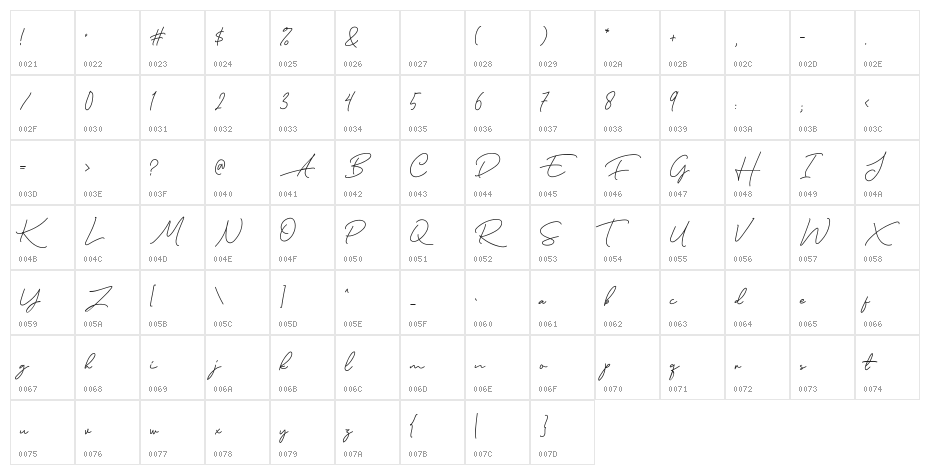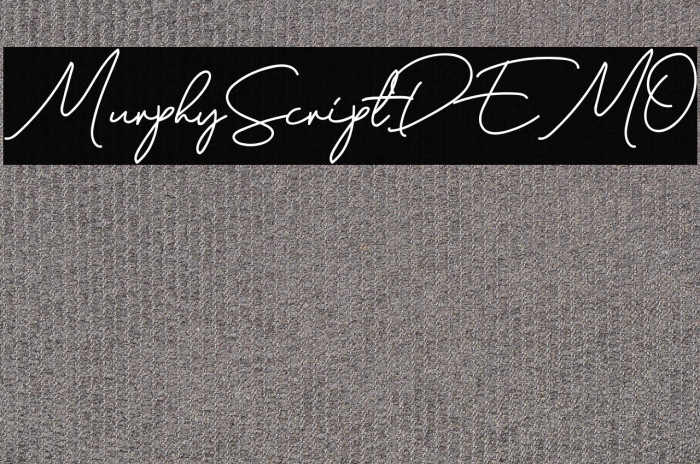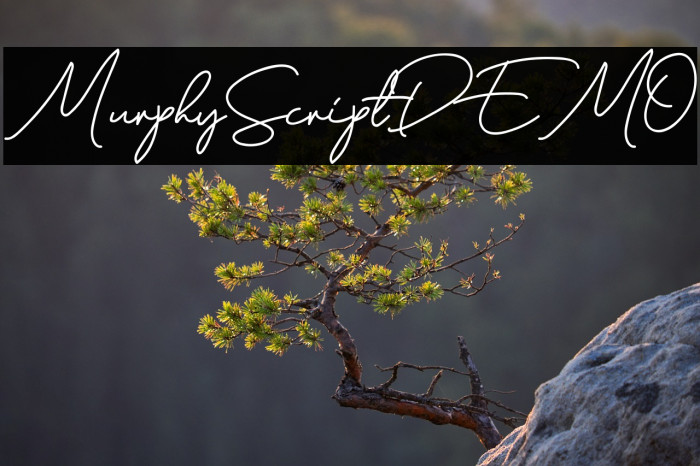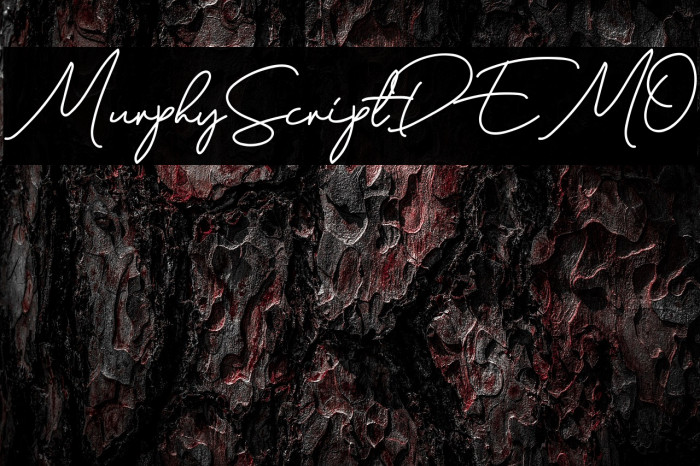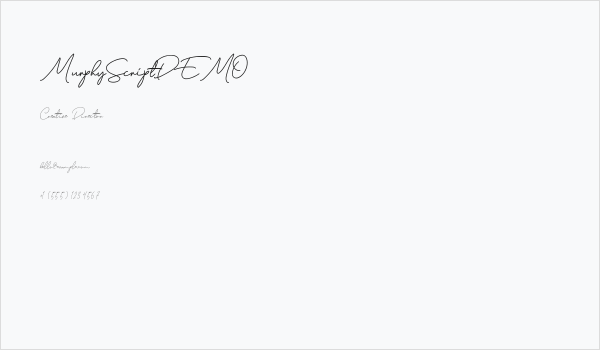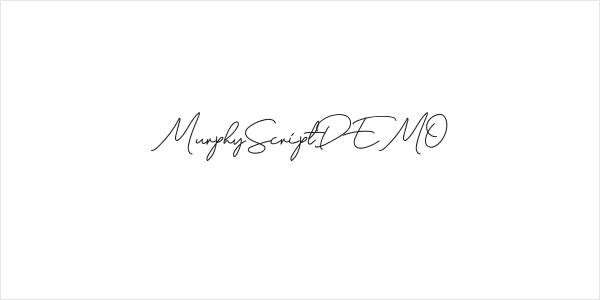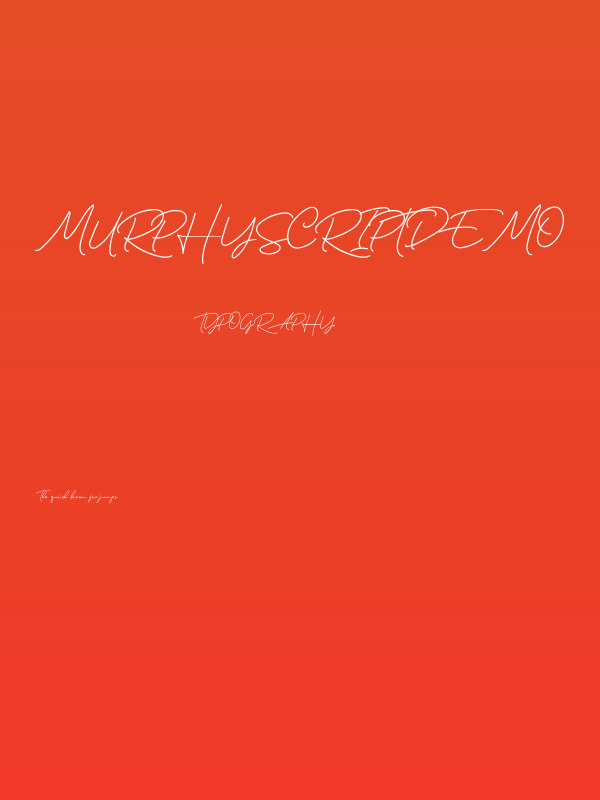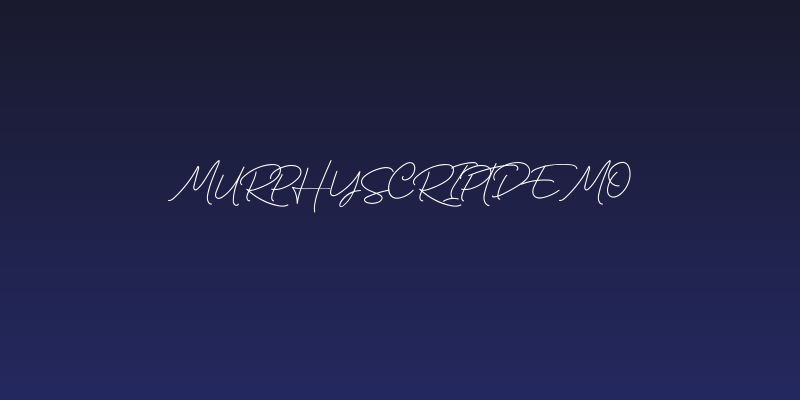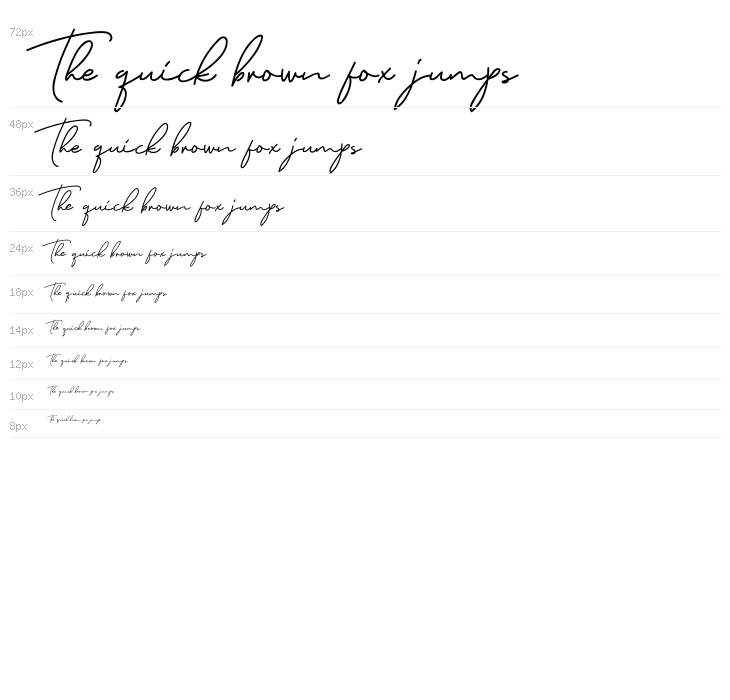
MurphyScriptDEMO Font
MurphyScriptDEMO Description
This elegant script font features a flowing, cursive style that mimics natural handwriting. The uppercase letters are characterized by sweeping, exaggerated loops and flourishes, giving them a sophisticated and artistic appearance. The lowercase letters maintain a consistent flow, with smooth connections between characters, enhancing the handwritten feel. The numerals are distinct yet harmonize well with the overall script style, offering a touch of elegance. Special characters are thoughtfully designed to match the fluidity of the alphabet, making this font versatile for various uses. Its delicate strokes and graceful curves make it ideal for projects that require a personal, elegant touch.
| Overall Style | Elegant, Handwritten |
| Use Case | Logos, Invitations, Personal Branding |
| Proposed Projects | Ideal for wedding invitations, greeting cards, personal branding, and elegant packaging designs. |